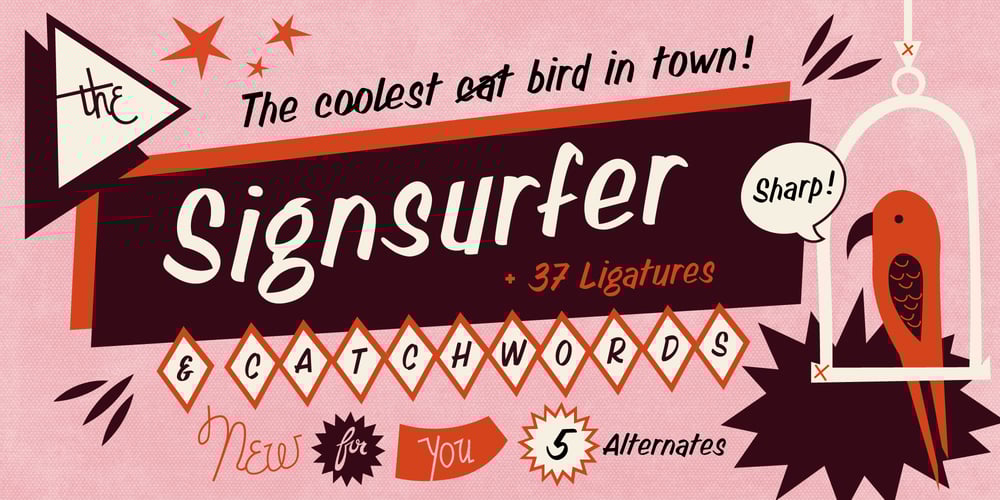
Signsurfers Script Font Family was designed by Marie Dautel and published by Learning Kiddos. Signsurfers Script contains 3 styles and family package options. Signsurfer is a unique retro font – a signpainter font, handwritten by me. Inspired by the golden ages of handlettering, this script font highlights:- a bouncy baseline- tight spacing- and full Latin support—Lots of really cool catchwords & shapes (you will get all the catchwords & shapes seen in the preview pics), five alternates and 37 ligatures help you to really get creative with this one.—What you can use it for:- branding- logotype- poster- t-shirt designs- all kind of labels- greeting cards- wedding invitations…and so much more—This font also works great as a running text, too. = )—Process behind it: first I drew all of those fancy letters & catchwords with a brush on paper. I then carefully traced all of those letters & catchwords in Illustrator and transferred them into my Font Creator program. This helped getting the unique sign painters flow. —Note: You will a need program that support OpenType Features for accessing the alternative glyphs.